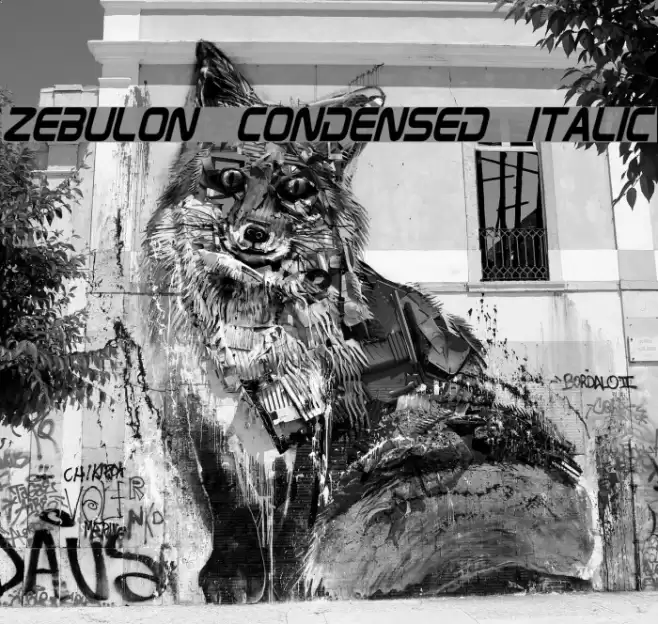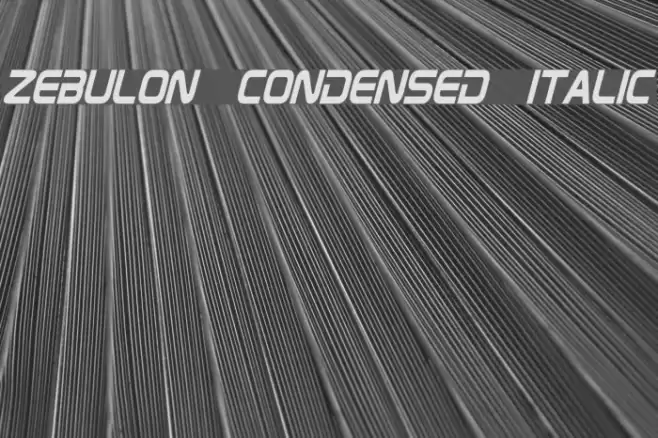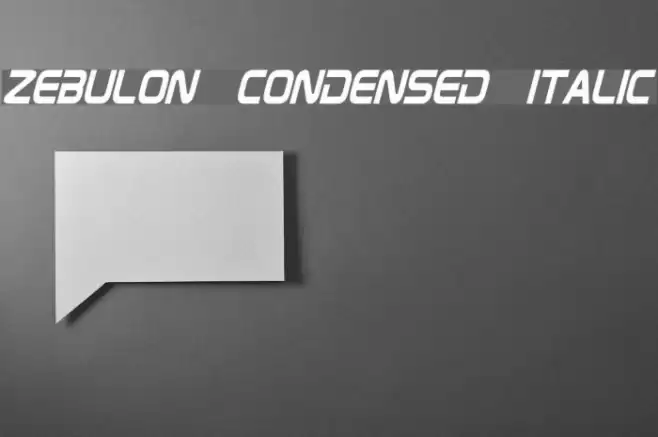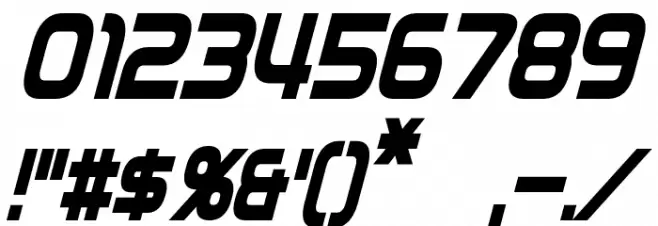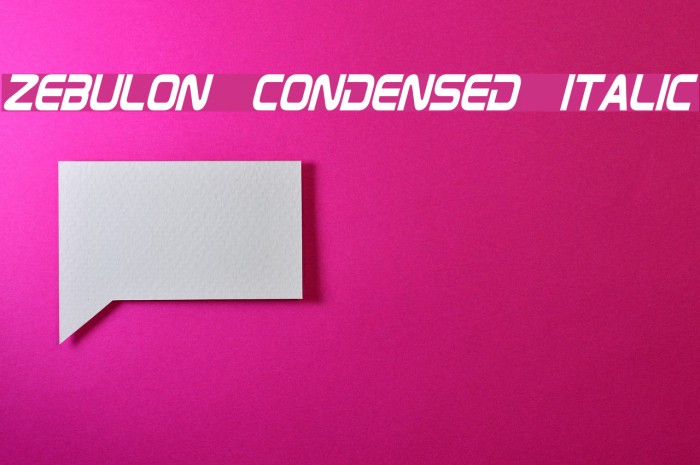
Zebulon Condensed Italic Font
Zebulon Condensed Italic Description
This font features a sleek, modern design with a condensed and italicized style. The characters are bold and angular, giving a sense of speed and dynamism. The uppercase and lowercase letters maintain a consistent slant, enhancing the italic effect. The numbers are equally bold and share the same angular design, ensuring uniformity across the font. Special characters are designed to match the overall aesthetic, making them suitable for various applications. The condensed width allows for efficient use of space, making it ideal for headlines or titles where impact is essential.
A bold, condensed italic font with a modern, angular design from Uncategorized fonts.
- Proposed Projects: Ideal for sports branding, automotive advertisements, dynamic posters, and modern web design.
- Character Spacing: Tight